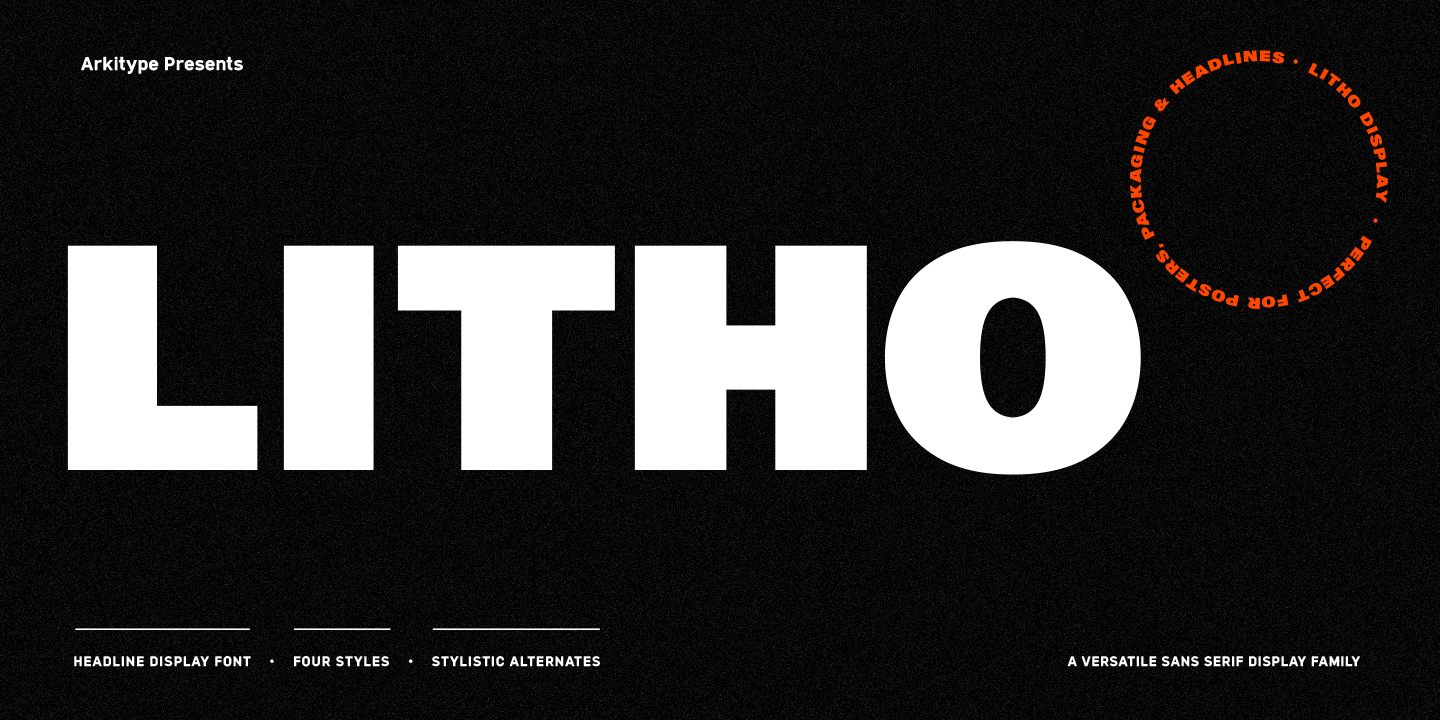
If you want your headlines and titles to scream boldness and style, Litho Display Font Free Download is the go-to font. With its strong, geometric shapes and sharp edges, this display font demands attention and adds a powerful presence to any design. Perfect for posters, branding, packaging, and editorial use, Litho Display creates an instant impact.
The clean and modern aesthetic of Litho Display Font Free Download makes it versatile enough to fit a wide range of projects, from edgy fashion campaigns to sleek corporate presentations. Its distinctive letterforms balance readability with a unique personality, making your text stand out without overwhelming the design.
This font shines brightest when used in large sizes, giving your titles and headings that commanding voice they deserve. It pairs well with simpler body fonts, creating a professional and eye-catching typography hierarchy.
In summary, Litho Display Font Free Download offers you a bold and modern typeface to elevate your creative projects. Try it free for testing, and when you’re ready to use it commercially, grab the license and take your designs to the next level.